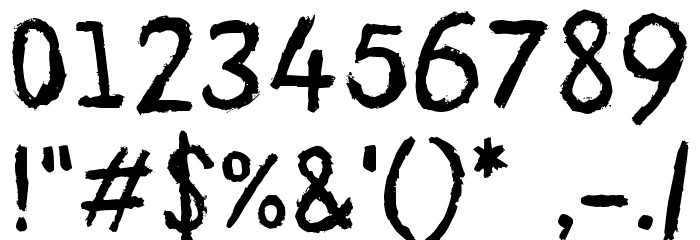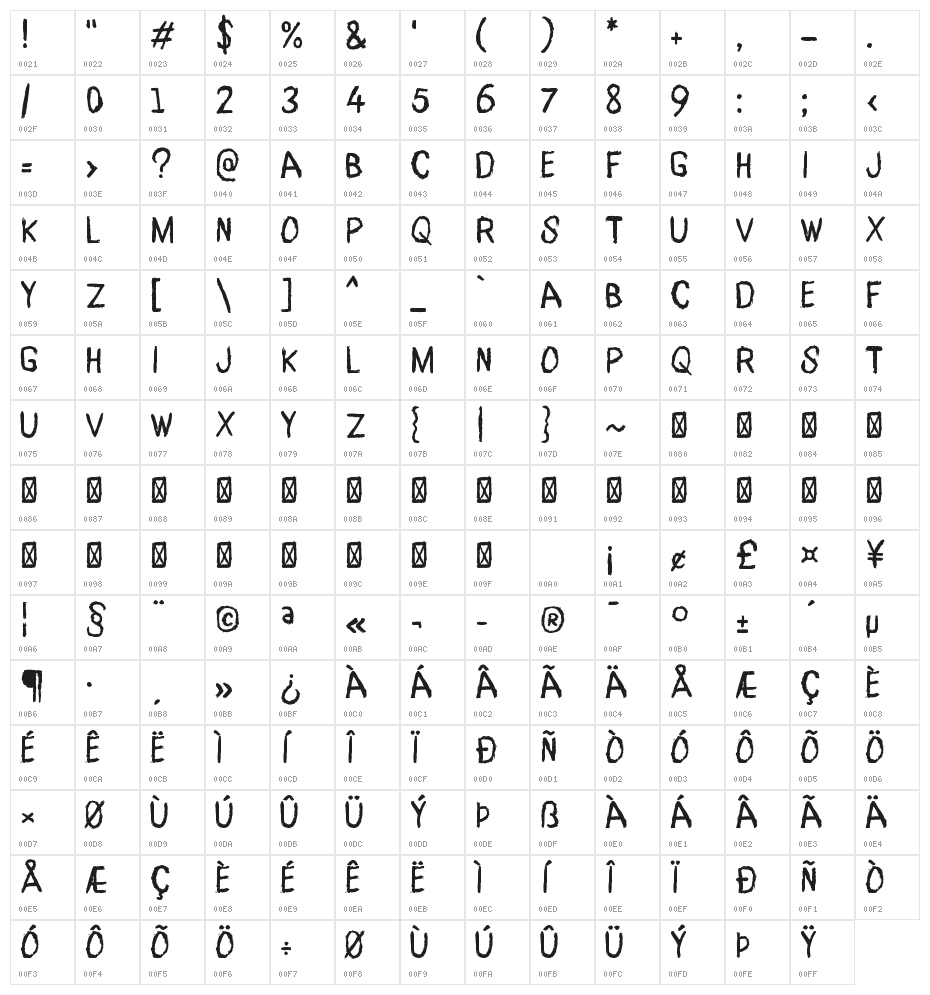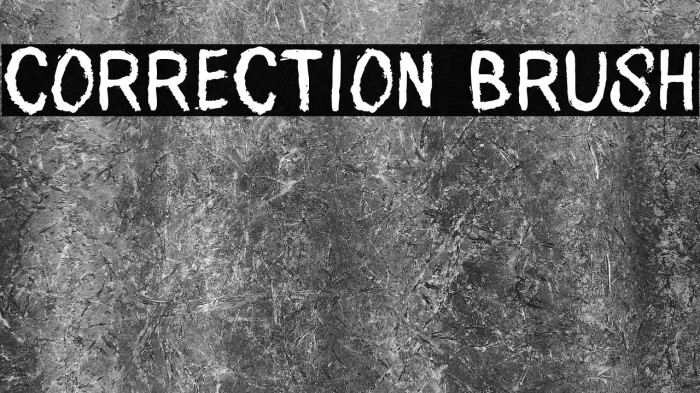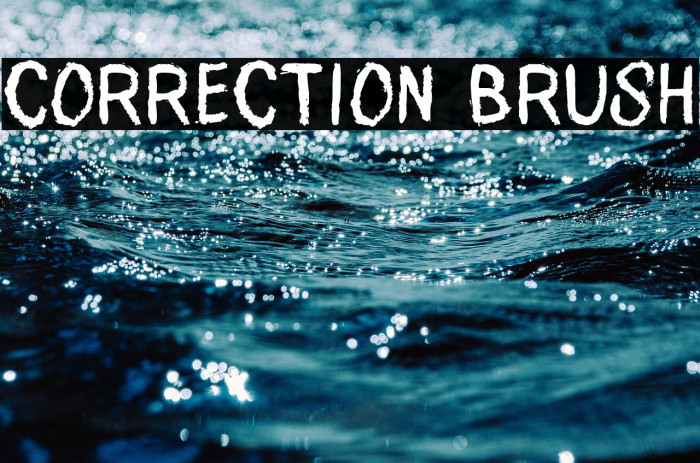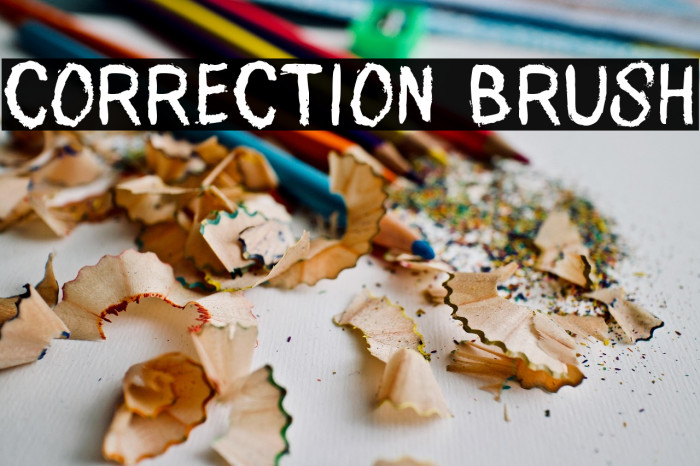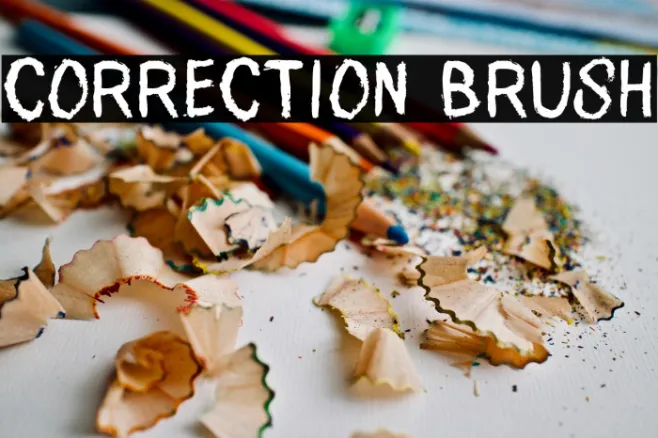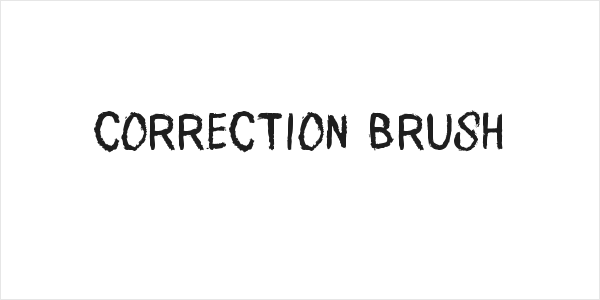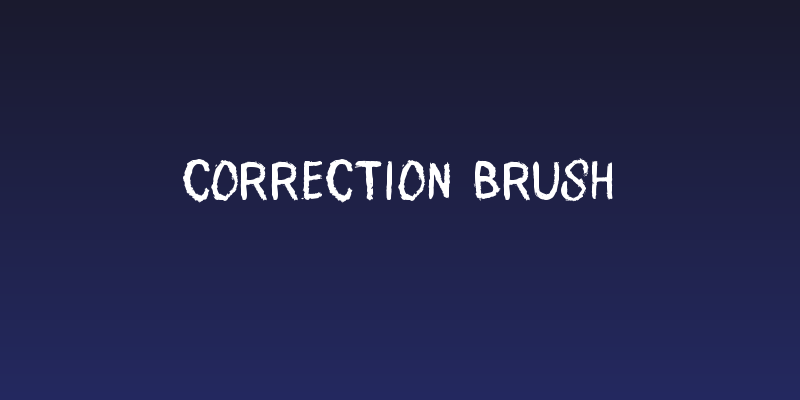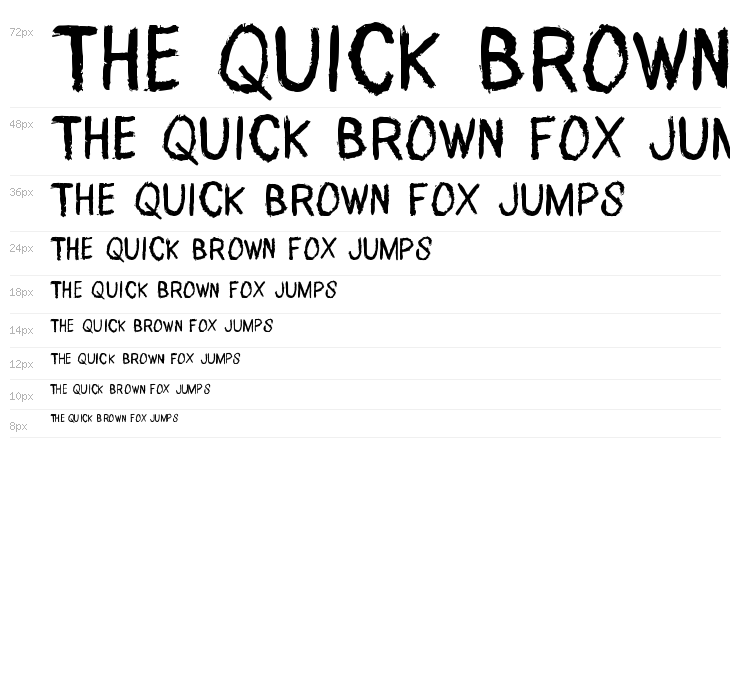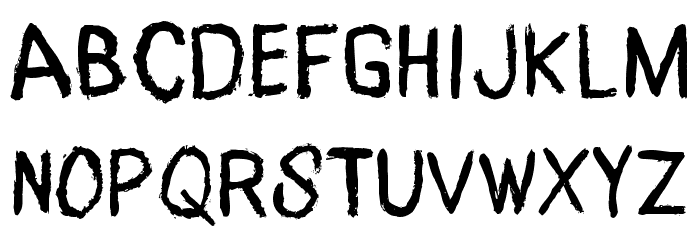
Correction Brush Font
Correction Brush Description
This font features a bold, brush-like texture that gives it a hand-painted appearance. The strokes are uneven and rugged, adding a raw and dynamic feel to the characters. The uppercase and lowercase letters maintain a consistent style, with a slightly irregular form that enhances its artistic flair. Numbers and special characters follow the same aesthetic, making the font versatile for creative projects. The overall look is expressive and energetic, suitable for designs that require a personal touch.
| Proposed Projects | Ideal for posters, album covers, artistic branding, and creative social media graphics. |